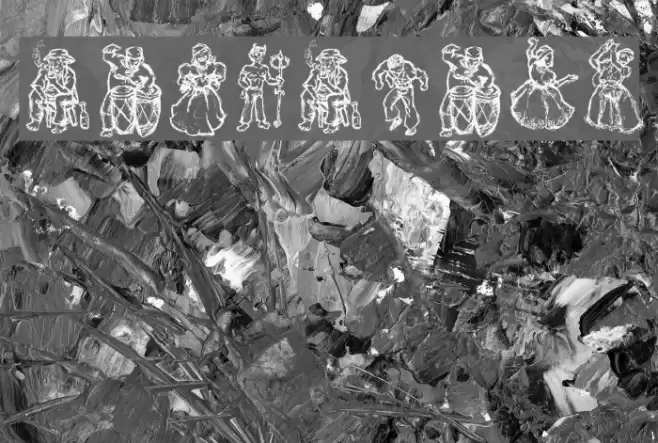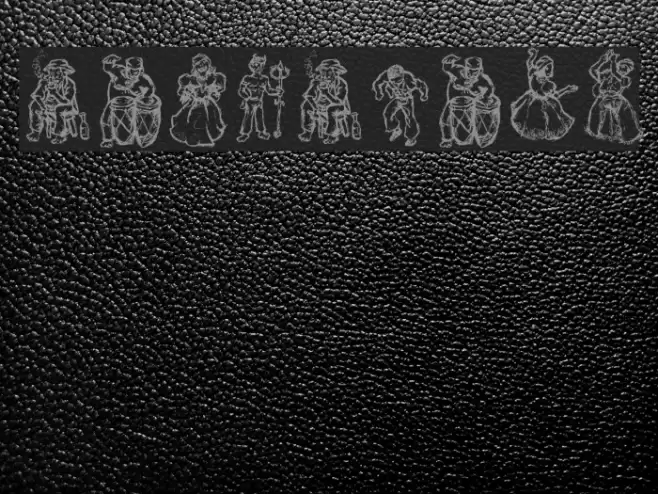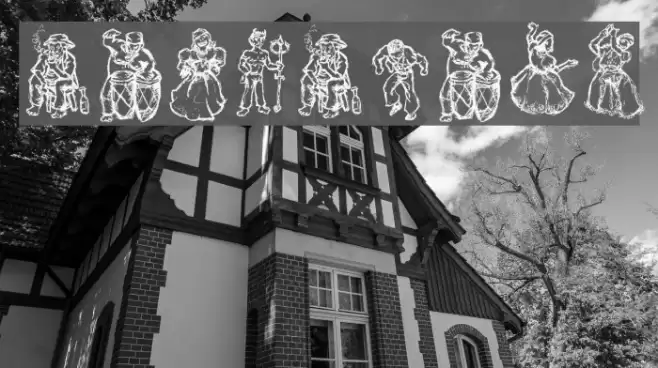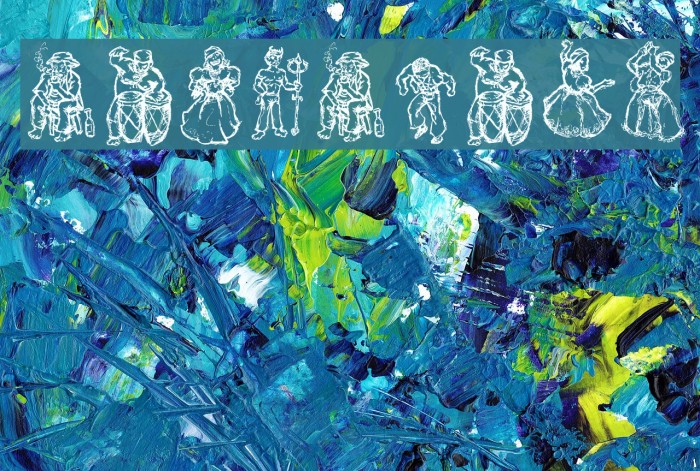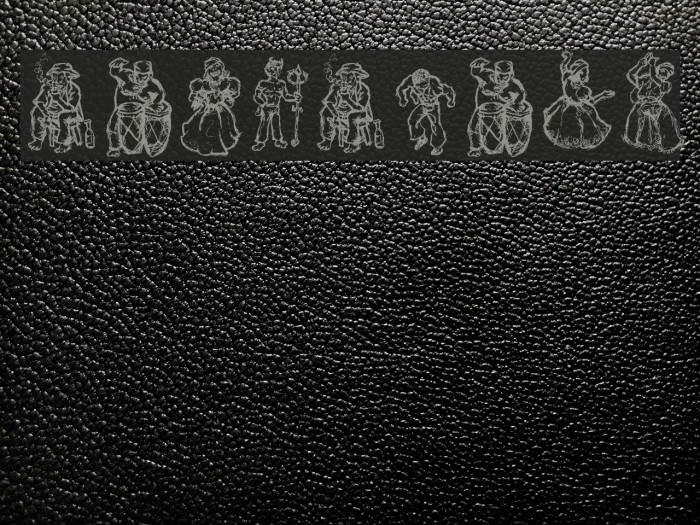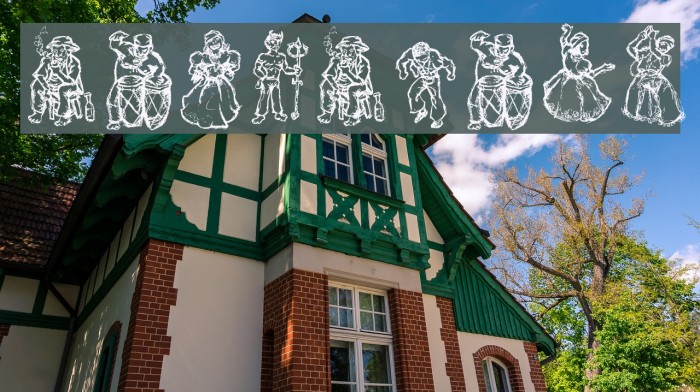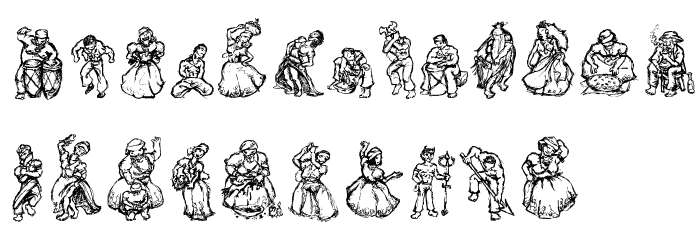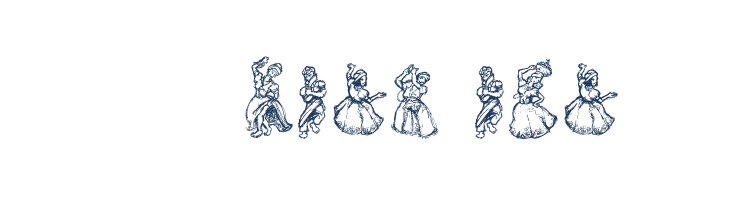
macumbats Font
macumbats Description
This is a highly decorative and artistic font featuring intricate illustrations of figures in various poses. Each character is represented by a unique, detailed drawing, giving the font a whimsical and artistic flair. The figures appear to be dressed in traditional or historical attire, adding a vintage and cultural touch. The overall design is complex, with each character offering a distinct visual story, making it more of an artistic expression than a conventional typeface. This font is ideal for creative projects that require a unique and eye-catching element.
A decorative font with intricate figure illustrations in place of traditional characters from Dingbats fonts.
- Proposed Projects: Ideal for artistic projects, event posters, cultural exhibitions, or any creative work that benefits from a unique visual element.
- Use Case: Logos, Artistic projects, Posters